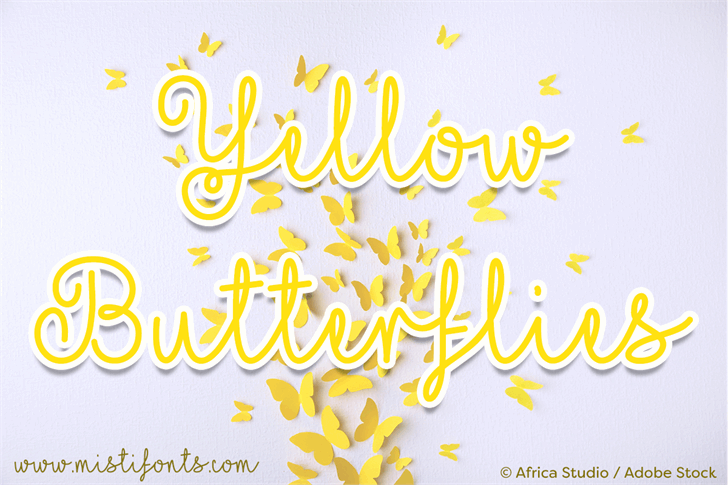
Free Mf Yellow Butterflies Font
Take a look at this adorable free mf yellow butterflies font. Font Space has created this amazing and beautiful typeface. Showcase your designs like a graphic design pro by adding a new touch with this beautiful font.